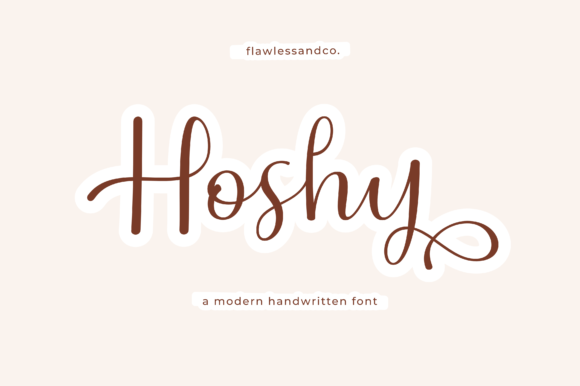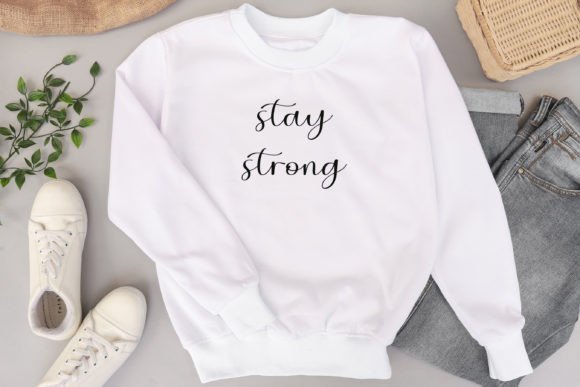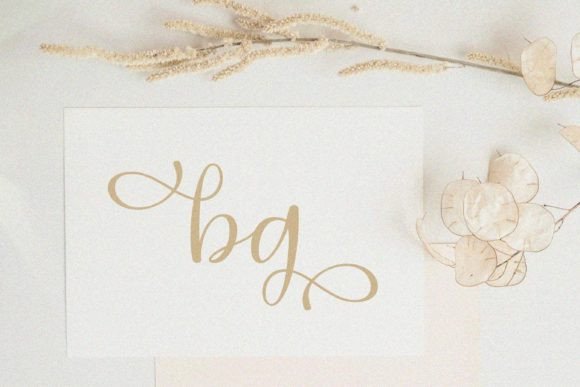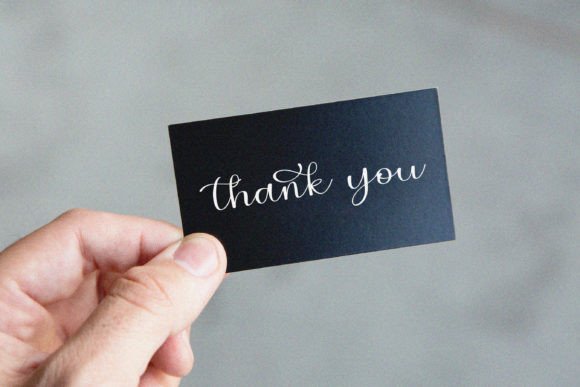
Hoshy Font
About Hoshy Font
“Hoshy” is a dazzling script font that stands out with its neatly crafted and highly detailed letterforms. This font is designed to make a strong visual impact and can enhance a wide range of creative projects. Whether you’re working on branding, invitations, packaging, or any other design endeavor, “Hoshy” offers the potential to elevate your creations with its intricate and stylish appearance.
The appeal of “Hoshy” lies in its meticulous attention to detail and craftsmanship. The script style features elegant and finely designed letterforms that create a visually striking and memorable aesthetic. This font can seamlessly fit into various design contexts, allowing you to create captivating and eye-catching designs.
One of the standout features of “Hoshy” is its versatility. It has the potential to enhance a wide array of design projects, making it a valuable asset for creative work. The font’s dazzling and detailed appearance adds a sense of uniqueness and sophistication to your text.
When you incorporate “Hoshy” into your designs, you can expect your creations to make a powerful statement and leave a lasting impression on your audience. This font has the power to make your designs truly remarkable.
In summary, “Hoshy” is more than just a font; it’s a design asset that can elevate your creative projects with its dazzling and meticulously crafted script style. Its versatility and attention to detail make it a valuable addition to your design toolkit. You can confidently use “Hoshy” to add a touch of uniqueness and sophistication to a wide range of design ideas, as it has the potential to make your designs truly extraordinary!